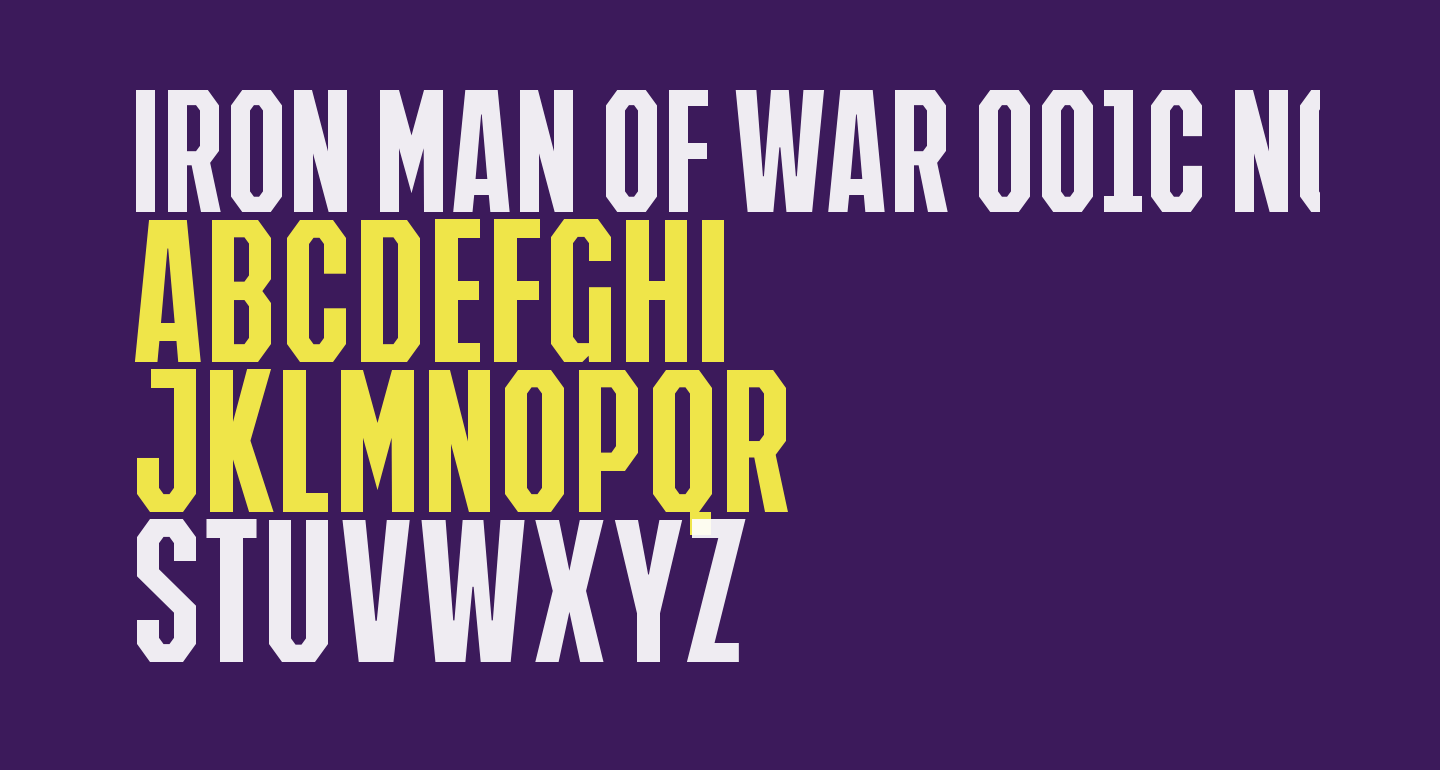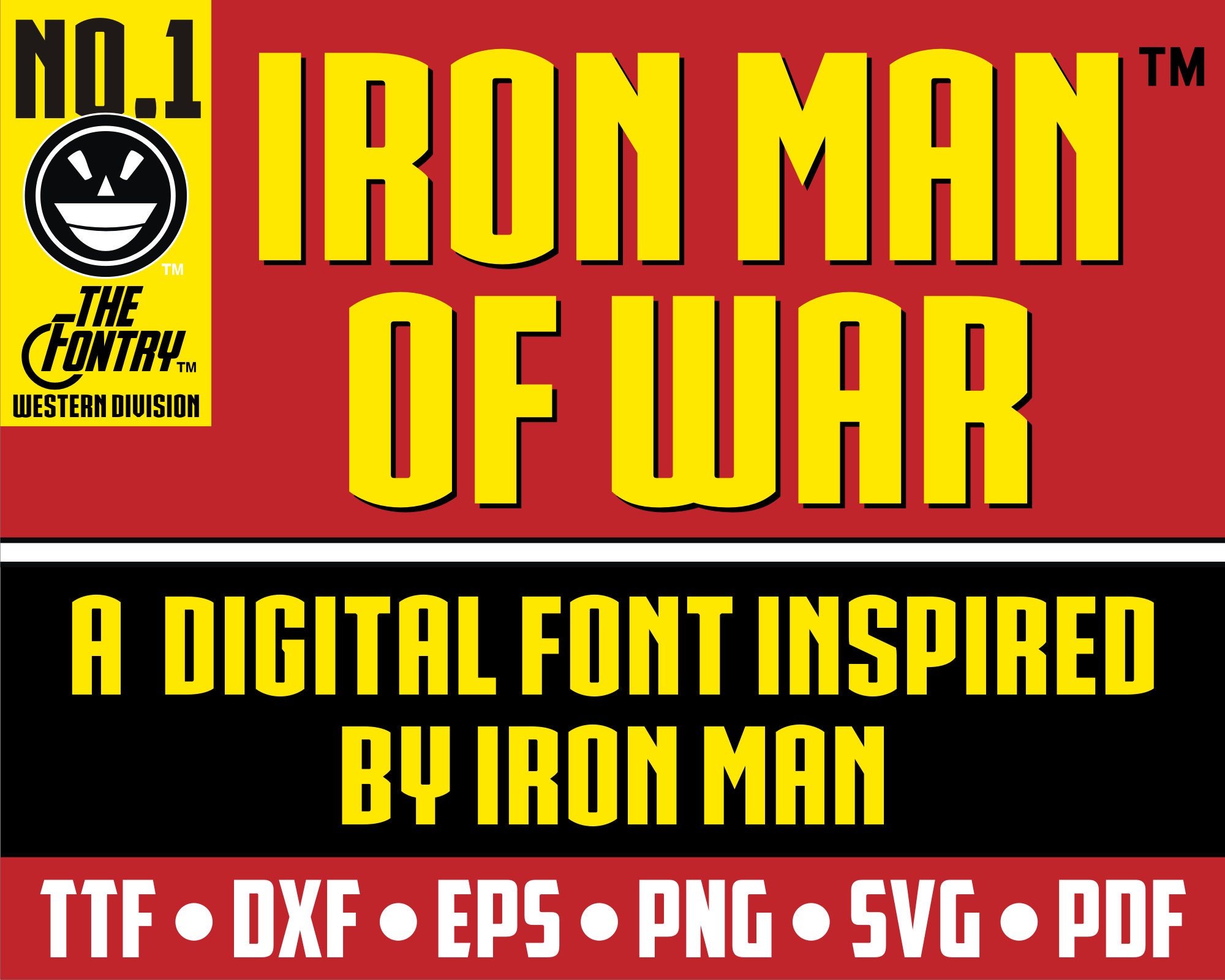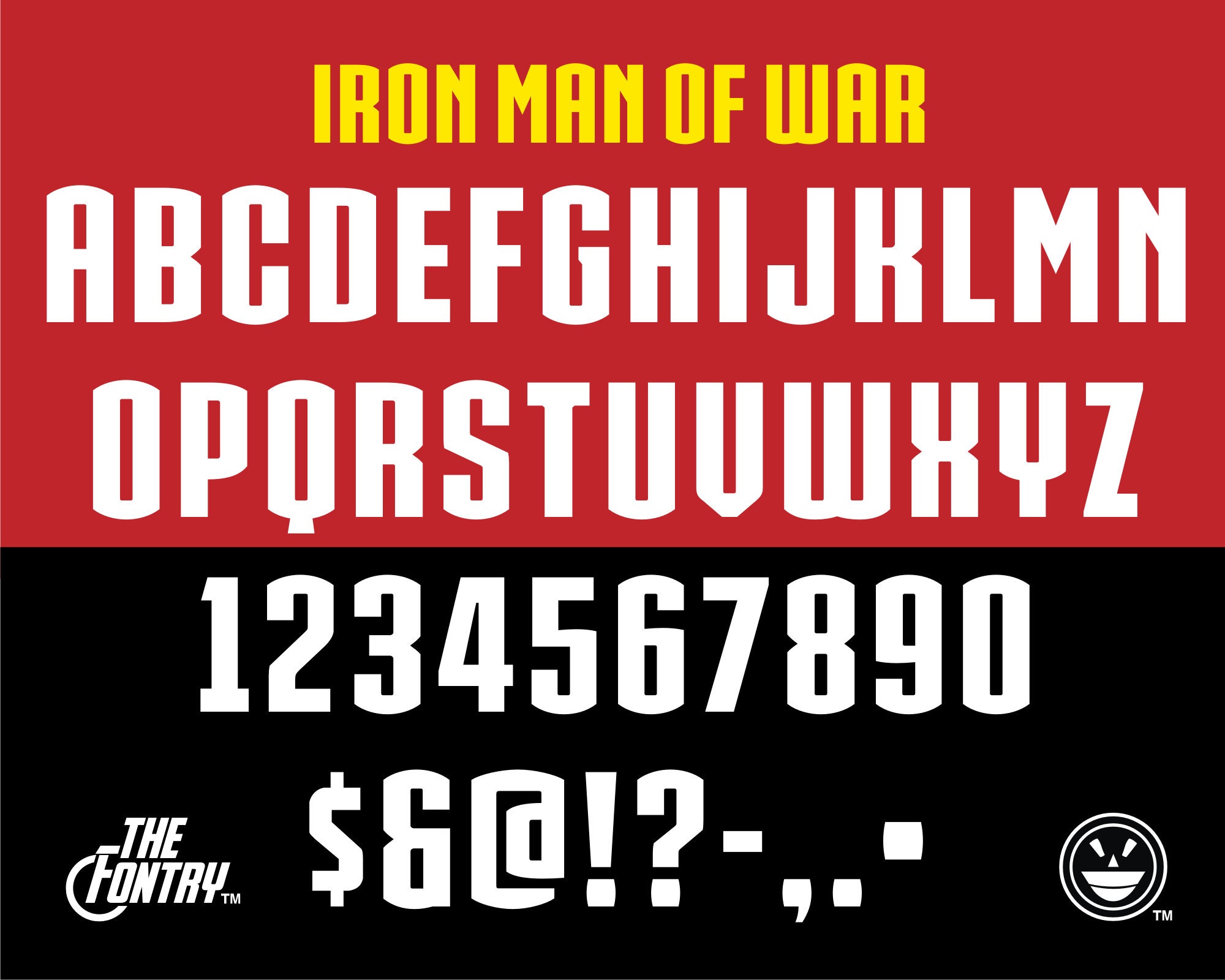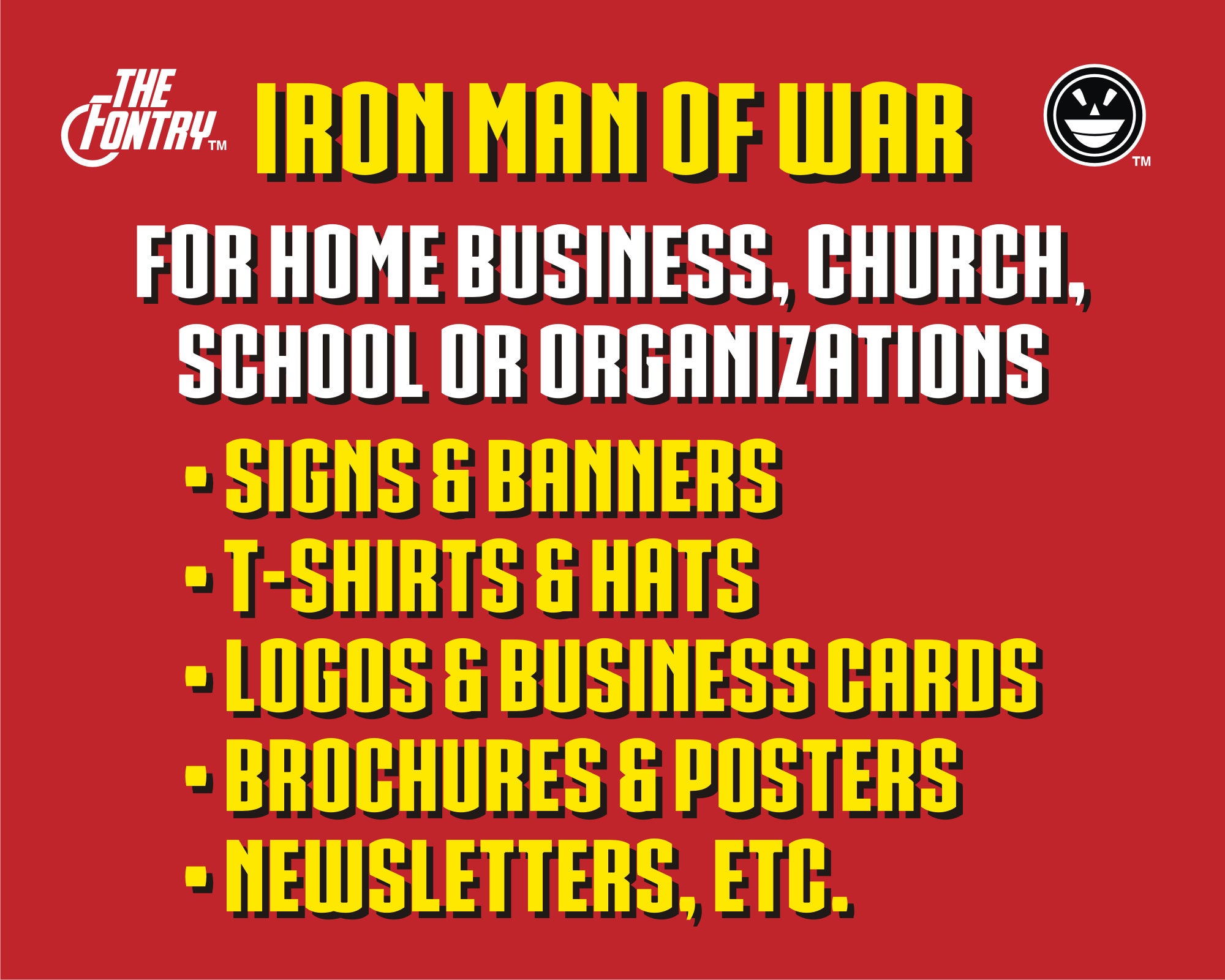
Iron Man Of War 002 Font . Web download iron man of war 2 ncv font, a free iron man font created by the fontry in 2013. Web download free iron man of war 002 ncv font for personal use and create text graphics with different colors and effects.
Web download this free font designed by fontry for personal use only. Web free download of iron man of war font family with 4 styles. Web download free iron man of war 002 ncv font for personal use and create text graphics with different colors and effects.
Web download free or buy the commercial version of this font inspired by the iron man movie. Click now to create a custom image with your own words that you can download. Web download free iron man of war 002 ncv font for personal use and create text graphics with different colors and effects. Web download this free font designed by fontry for personal use only.
Iron Man Of War 002 Font - Web download iron man of war 2 ncv font, a free iron man font created by the fontry in 2013. Web free download of iron man of war font family with 4 styles. Web download free iron man of war 002 ncv font for personal use and create text graphics with different colors and effects. It has 390 glyphs and.
Iron Man Of War 002 Font - Web download free or buy the commercial version of this font inspired by the iron man movie. Web free download of iron man of war font family with 4 styles. Web download free iron man of war 002 ncv font for personal use and create text graphics with different colors and effects. It has 390 glyphs and is available in.
Iron Man Of War 002 Font - Web download free or buy the commercial version of this font inspired by the iron man movie. Web download iron man of war 002 ncv font, a basic, various font designed by fontry. Click now to create a custom image with your own words that you can download. This font is for personal use only and has 240 glyphs and.
Iron Man Of War 002 Font - Web download this free font designed by fontry for personal use only. Web download free iron man of war 002 ncv font for personal use and create text graphics with different colors and effects. Web download free or buy the commercial version of this font inspired by the iron man movie. It has 390 glyphs and is available in various..
Iron Man Of War 002 Font - This font is for personal use only and has 240 glyphs and 394 characters. It has 390 glyphs and is available in various. Web download free or buy the commercial version of this font inspired by the iron man movie. This font is free for personal use and has 393. Web download free iron man of war 002 ncv font.
Iron Man Of War 002 Font - Web download iron man of war 002 ncv font, a basic, various font designed by fontry. Web free download of iron man of war font family with 4 styles. Web download free iron man of war 002 ncv font for personal use and create text graphics with different colors and effects. This font is free for personal use and has.
Iron Man Of War 002 Font - Web download free iron man of war 002 ncv font for personal use and create text graphics with different colors and effects. Web download free or buy the commercial version of this font inspired by the iron man movie. Click now to create a custom image with your own words that you can download. This font is free for personal.
Iron Man Of War 002 Font - It has 390 glyphs and is available in various. Web download iron man of war 2 ncv font, a free iron man font created by the fontry in 2013. Web download iron man of war 002 ncv font, a basic, various font designed by fontry. This font is free for personal use and has 393. Web download this free font.
Iron Man Of War 002 Font - This font is free for personal use and has 393. This font is for personal use only and has 240 glyphs and 394 characters. Web download this free font designed by fontry for personal use only. Web download iron man of war 2 ncv font, a free iron man font created by the fontry in 2013. Web free download of.
Iron Man Of War 002 Font - It has 390 glyphs and is available in various. This font is free for personal use and has 393. Click now to create a custom image with your own words that you can download. Web download this free font designed by fontry for personal use only. Web download iron man of war 2 ncv font, a free iron man font.
Iron Man Of War 002 Font - Web download iron man of war 002 ncv font, a basic, various font designed by fontry. It has 390 glyphs and is available in various. Web download iron man of war 2 ncv font, a free iron man font created by the fontry in 2013. Web download this free font designed by fontry for personal use only. Web download free.
Iron Man Of War 002 Font - Web free download of iron man of war font family with 4 styles. Web download this free font designed by fontry for personal use only. Web download iron man of war 002 ncv font, a basic, various font designed by fontry. It has 390 glyphs and is available in various. This font is for personal use only and has 240.
Iron Man Of War 002 Font - Web download iron man of war 002 ncv font, a basic, various font designed by fontry. Web download free or buy the commercial version of this font inspired by the iron man movie. Web download iron man of war 2 ncv font, a free iron man font created by the fontry in 2013. Web download this free font designed by.